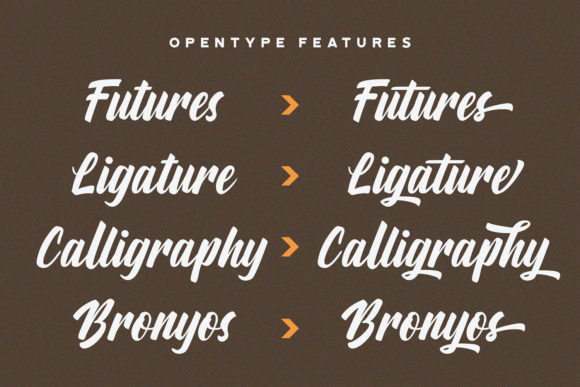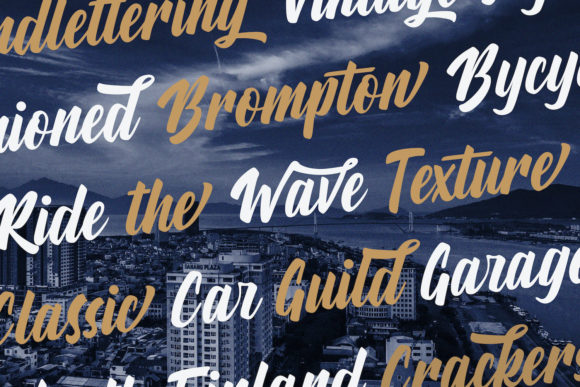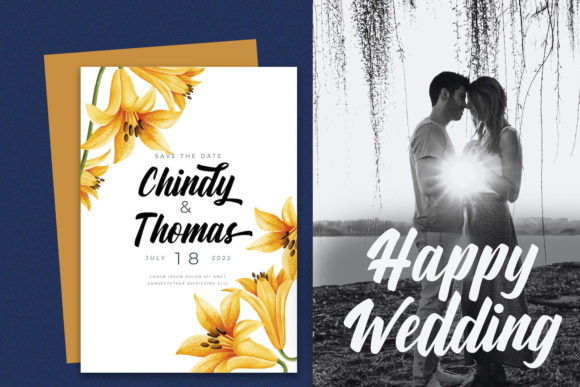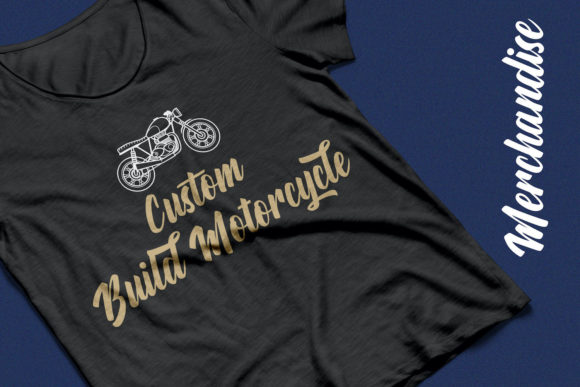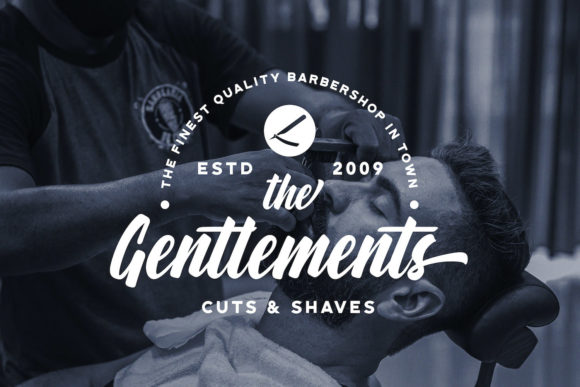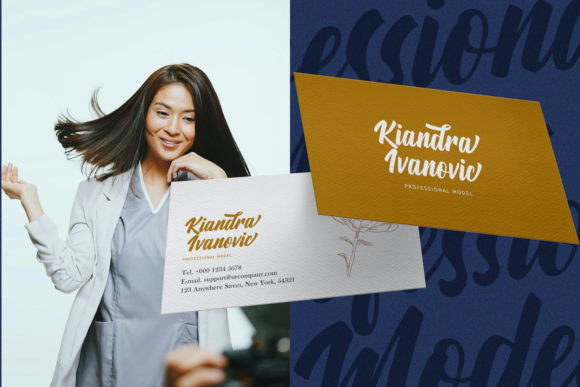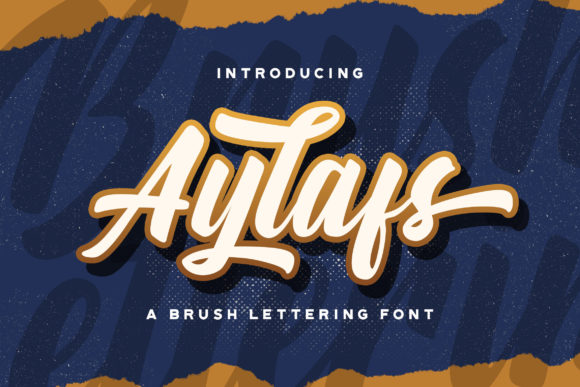
Aylafs Font: Elevate Your Designs with a Stylish and Bold Handwritten Touch
Are you looking for a font that can add a touch of elegance and sophistication to your designs? Look no further than Aylafs Font, a gorgeous and bold handwritten font that is perfect for headlines, logotype projects, and more. With its strong, confident, and dynamic style, Aylafs Font is sure to make your designs stand out from the crowd.
What Makes Aylafs Font So Special?
Aylafs Font is a carefully crafted font that is designed to give your designs a stylish and nostalgic touch. Its bold and confident style makes it perfect for headlines, titles, and logotypes, while its dynamic and flowing lines add a touch of elegance and sophistication. Whether you’re working on a branding project, a website design, or a craft project, Aylafs Font is the perfect choice.
Key Features of Aylafs Font
- PUA Encoded: Aylafs Font is PUA encoded, which means that you can access all of the glyphs and swashes with ease. This makes it easy to customize your designs and add your own personal touch.
- Bold and Confident: Aylafs Font has a strong and confident style that is perfect for headlines and titles.
- Dynamic and Flowing: The font’s dynamic and flowing lines add a touch of elegance and sophistication to your designs.
- Nostalgic Character: Aylafs Font has a nostalgic character that is perfect for designs that require a touch of vintage charm.
Uses for Aylafs Font
Aylafs Font is a versatile font that can be used for a wide range of design projects, including:
- Branding: Use Aylafs Font to create bold and eye-catching logos and branding materials.
- Web Design: Add a touch of elegance and sophistication to your website design with Aylafs Font.
- Crafting: Use Aylafs Font to create beautiful and unique craft projects, such as handmade cards and invitations.
- Signage: Aylafs Font is perfect for creating eye-catching signs and displays.
Tips for Using Aylafs Font
- Use it bold: Aylafs Font is designed to be used bold, so don’t be afraid to make it big and bold.
- Experiment with swashes: Aylafs Font comes with a range of swashes and glyphs, so experiment with different combinations to add a personal touch to your designs.
- Pair it with other fonts: Aylafs Font pairs well with a range of other fonts, so try pairing it with a sans-serif font for a contrasting look.